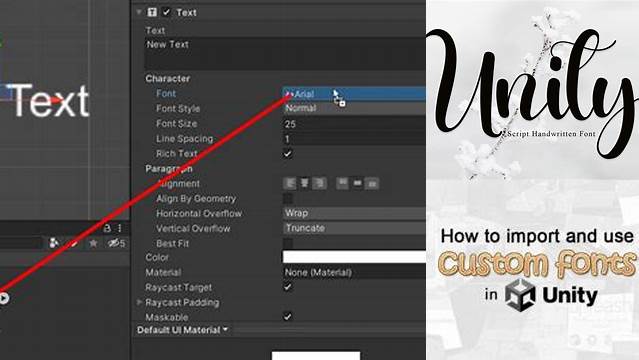
Import Fonts To Unity: Easy Guide + Tips
Hey guys! Ever wondered how to import fonts in Unity and give your game that polished, professional look? Well, you've come to the right place! Importing custom fonts into Unity is a crucial step in creating visually appealing and immersive games. The right font can significantly enhance the user experience, making text more readable and aligning with your game's overall aesthetic. Whether you're aiming for a futuristic vibe, a fantasy feel, or a simple, clean interface, choosing and implementing the right font is key. In this comprehensive guide, we'll walk you through everything you need to know about importing fonts into Unity, from understanding font formats to troubleshooting common issues. So, let's dive in and make your game look fantastic!
1. Understanding Font Formats for Unity
Before we jump into the import process, it’s important to understand the different font formats that Unity supports. This knowledge will help you choose the right fonts and avoid compatibility issues. Unity primarily works with two main font formats: TrueType Fonts (TTF) and OpenType Fonts (OTF). Both TTF and OTF are widely used and offer excellent quality, but there are some subtle differences. Understanding these formats is the first step in mastering how to import fonts in Unity. Let's break it down.
TrueType Fonts (TTF)
TrueType Fonts (TTF) are one of the most common font formats, known for their broad compatibility across various platforms and operating systems. Developed by Apple and Microsoft in the late 1980s, TTF fonts are based on a quadratic Bezier curve outline, which provides a good balance between font quality and file size. This makes them a popular choice for game development, where performance is crucial. When you're thinking about how to import fonts in Unity, TTF fonts are a reliable option because they render consistently across different devices and screen resolutions. Plus, they're widely available, so you'll have no trouble finding the perfect TTF font for your project. Using TTF fonts ensures your text looks sharp and legible, contributing to a better user experience for your players. The widespread use and stability of TTF make it a safe bet when you're considering how to import fonts in Unity for a polished look.
OpenType Fonts (OTF)
OpenType Fonts (OTF) are the more advanced successor to TrueType, offering enhanced features and capabilities. OTF fonts can contain more sophisticated typographic features, such as ligatures, swashes, and contextual alternates, allowing for more nuanced and aesthetically pleasing text rendering. This format also supports both quadratic Bezier curves (like TTF) and cubic Bezier curves, providing greater precision in font design. When considering how to import fonts in Unity, OTF fonts are a great option if you need advanced typographic control or want to add a unique flair to your game's text. OTF fonts also support a larger character set, including Unicode, which means they can handle a wider range of languages and symbols. This is particularly useful if you're developing a game for a global audience. While OTF fonts are generally larger in file size compared to TTF, the extra features and improved rendering quality often make them worth it. So, when thinking about how to import fonts in Unity, remember that OTF fonts can provide that extra touch of sophistication and versatility.
2. Finding Fonts for Your Unity Project
Now that you understand font formats, let's talk about where to find the perfect fonts for your Unity project. The right font can set the tone for your game, so it's worth spending some time exploring your options. There are numerous resources available, both free and paid, offering a wide variety of styles to suit any game genre. Knowing where to look is essential when learning how to import fonts in Unity and choosing the best look for your game. Let's explore some popular sources.
Free Font Resources
There are tons of fantastic free font resources online that you can use for your Unity project. These sites offer a wide range of styles, from classic to quirky, making it easy to find something that fits your game's theme. When you're considering how to import fonts in Unity, starting with free resources is a great way to save money and experiment with different looks. One popular option is Google Fonts, which provides a vast library of open-source fonts that are free to use in commercial projects. Another excellent resource is Font Squirrel, known for its high-quality, free-for-commercial-use fonts. DaFont is also a go-to for many developers, offering a diverse selection of fonts, though it’s important to check the licensing terms for each font, as some may have restrictions. Using free font resources is a smart way to learn how to import fonts in Unity without breaking the bank, and you might just find the perfect font for your game in the process. Just be sure to always check the license to ensure it meets your needs.
3. Importing Fonts into Your Unity Project
Alright, let's get to the nitty-gritty of how to import fonts in Unity! This is where we take the fonts you've chosen and bring them into your Unity project. The process is straightforward, but it's important to follow the steps carefully to ensure everything works correctly. We'll cover the basic import process, adjusting import settings, and creating font prefabs. So, grab your fonts and let's get started!
Basic Import Process
The basic process of how to import fonts in Unity is super simple, guys. First, locate the font files you've downloaded (usually in TTF or OTF format). Then, navigate to your Unity project in the Project window. Create a new folder (or use an existing one) to keep your fonts organized—this is a good practice to maintain a clean project structure. Now, simply drag and drop the font files from your computer's file explorer into the folder you created in Unity. You can also right-click in the Project window, select